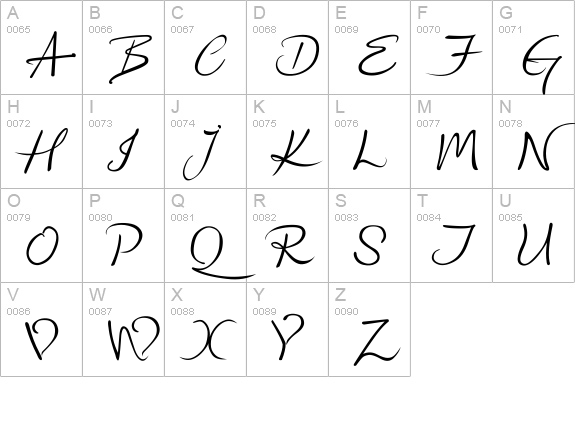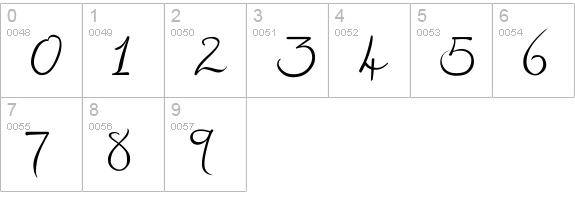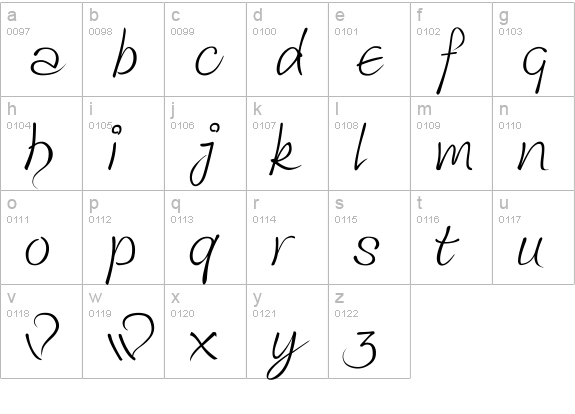
Kingthings Wrote font is a beautifully crafted typeface that exudes elegance and sophistication. With its delicate strokes and graceful curves, this font captures the essence of traditional calligraphy, making it perfect for adding a touch of class to any design project. What makes Kingthings Wrote font even more appealing is that it is available for free. That's right, you can download this stunning font without spending a dime. Whether you are a professional designer or a casual enthusiast, having access to high-quality fonts can greatly enhance your creative endeavors. With Kingthings Wrote font, you can effortlessly create stunning wedding invitations, elegant logos, or stylish branding materials. Its versatility allows it to be used in a wide range of design applications, from print to digital. This font's attention to detail is truly remarkable. Each letter is carefully crafted, ensuring a seamless flow and balance across the entire typeface. The result is a font that is both visually pleasing and easy to read. Thanks to its freely available status, Kingthings Wrote font has become a favorite among designers and typographers. Its popularity can be attributed to its ability to effortlessly blend with various design styles, making it a versatile choice for any project. To get your hands on this exquisite font, simply head over to FontsMarket.com, where it is available for instant download. FontsMarket.com is a trusted source for high-quality fonts, and you can browse through their extensive collection to find just the right typeface for your needs. In conclusion, Kingthings Wrote font is a stunning and versatile typeface that is freely available for download. Its elegant design and attention to detail make it a perfect choice for any design project. Head over to FontsMarket.com today and add this exceptional font to your collection.